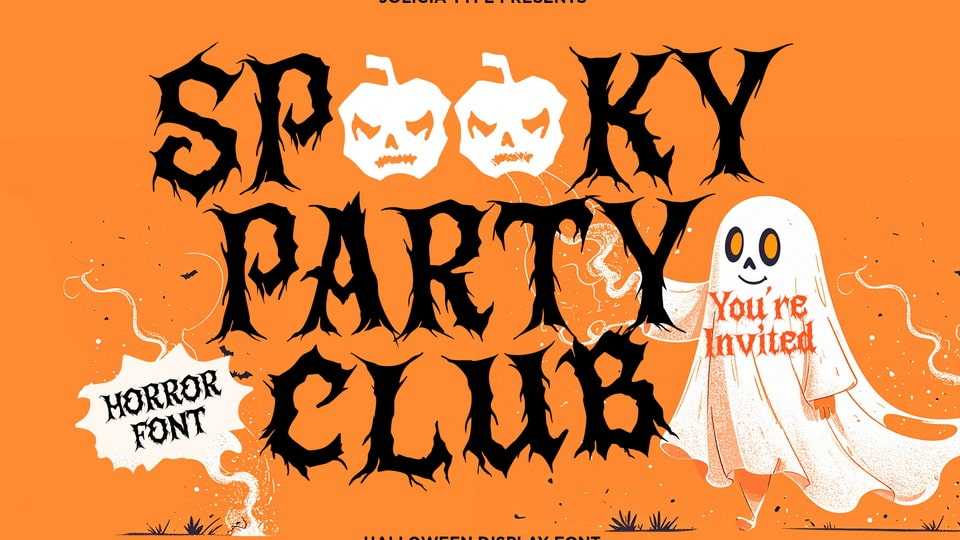
Download Spooky Party Club font, a playful horror Halloween typeface that blends creepy charm with festive fun designed with detailed tree-root letterforms.